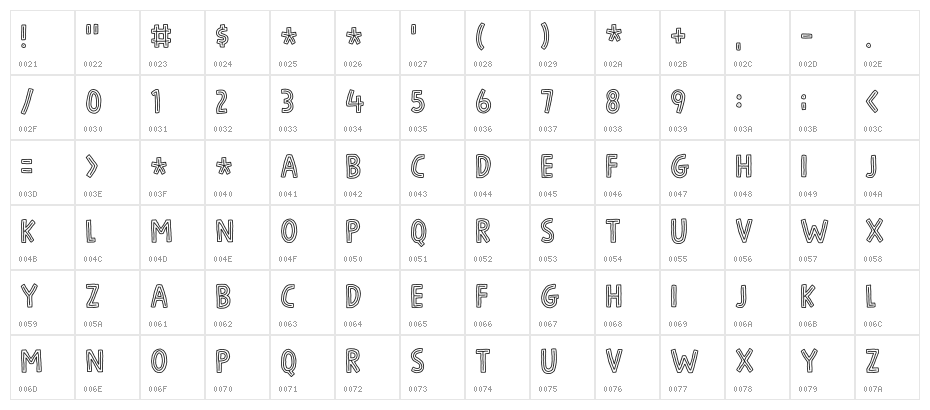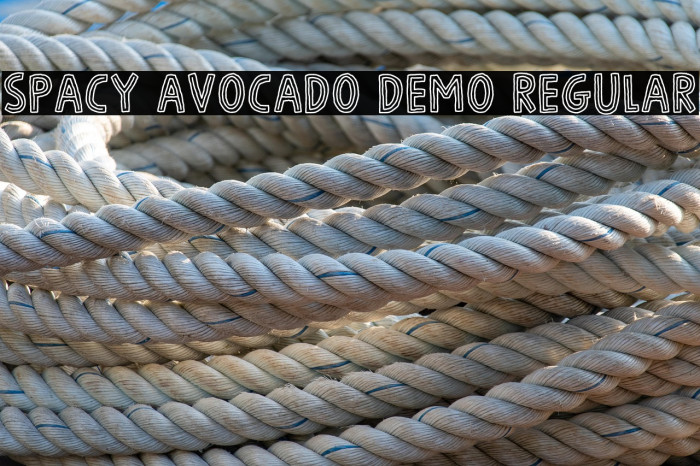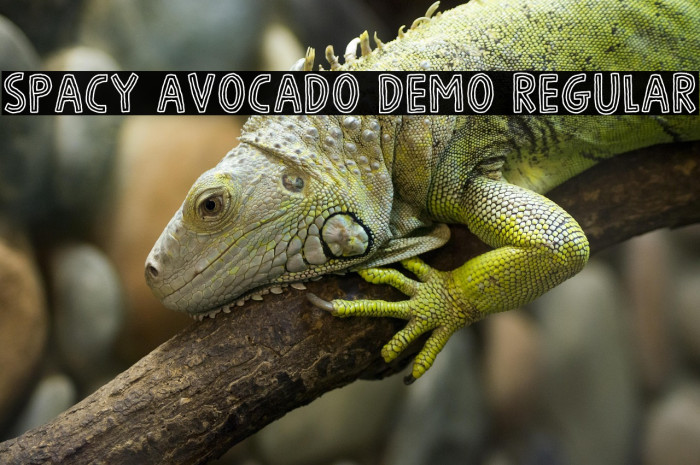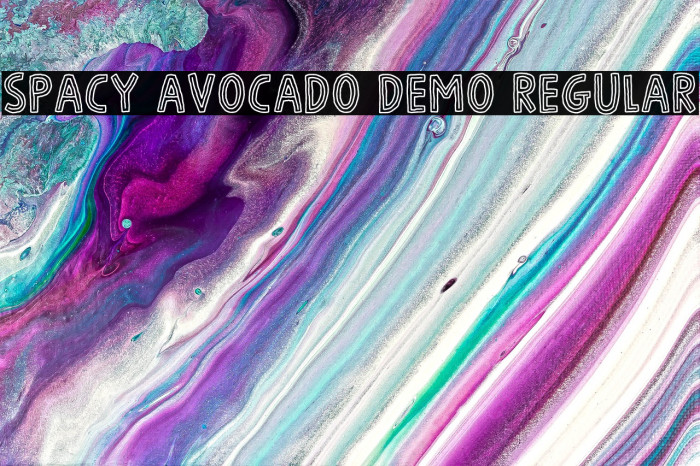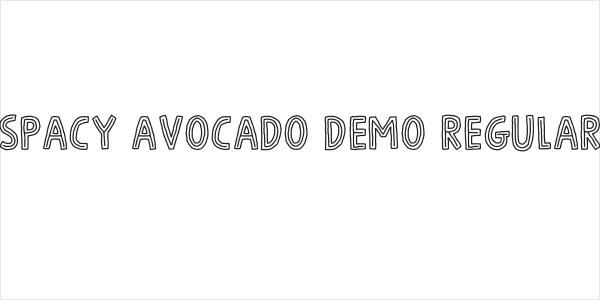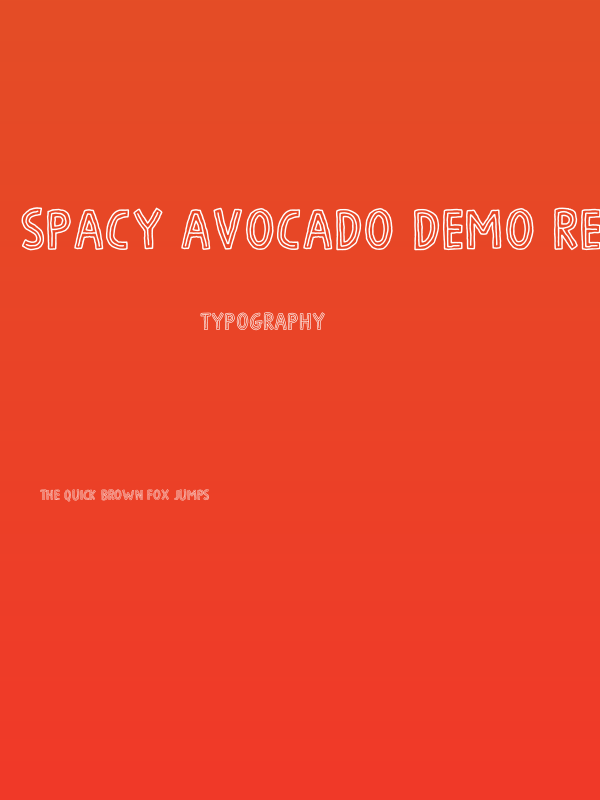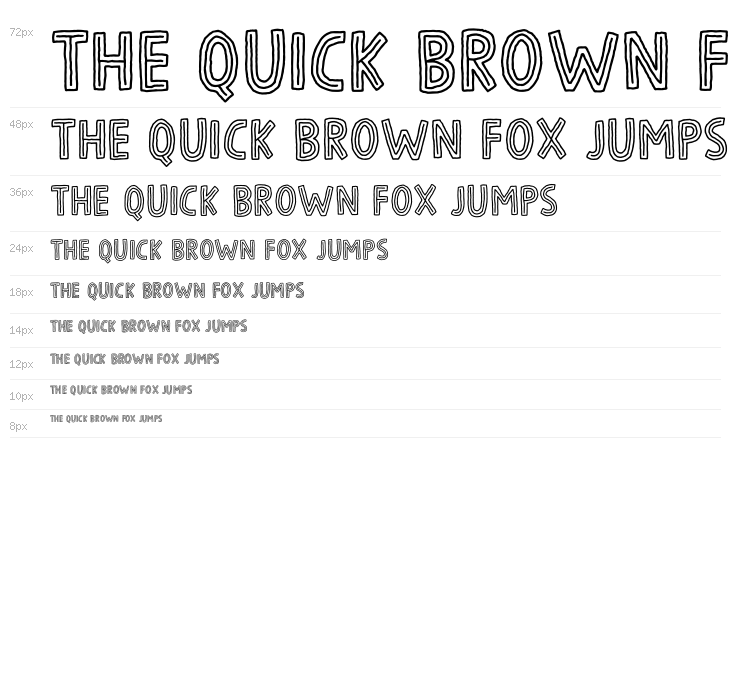
Spacy Avocado DEMO Regular Font
Spacy Avocado DEMO Regular Description
This font features a playful and bold design with a hand-drawn aesthetic. Each character is outlined, giving it a unique, sketch-like appearance. The letters are uppercase and maintain a consistent height, while the numbers and special characters follow the same stylistic approach. The font exudes a casual and fun vibe, making it suitable for creative and informal projects. Its distinct outlines and slightly irregular shapes contribute to a whimsical and approachable feel.
| Proposed Projects | Ideal for children's books, playful branding, casual posters, and creative social media graphics. |